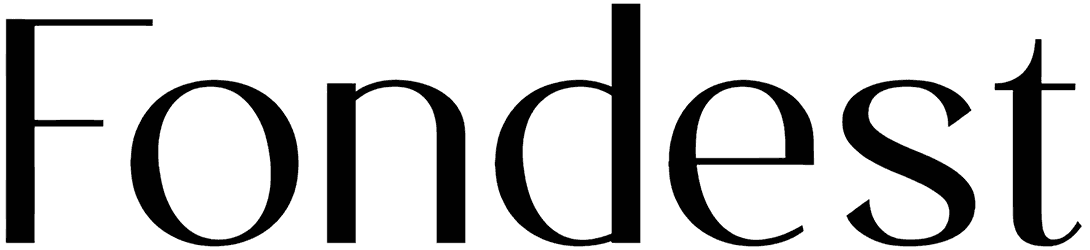
Fondest Font
A classic outward can be ideal for many designs and is always one of the most popular styles. This sans-serif font, which is called Fondest, is one of them and will bring a unique and classic mood to your words. You can display your upcoming designs, namely logotypes, flyers, planners, or the like, with this option and achieve the results.